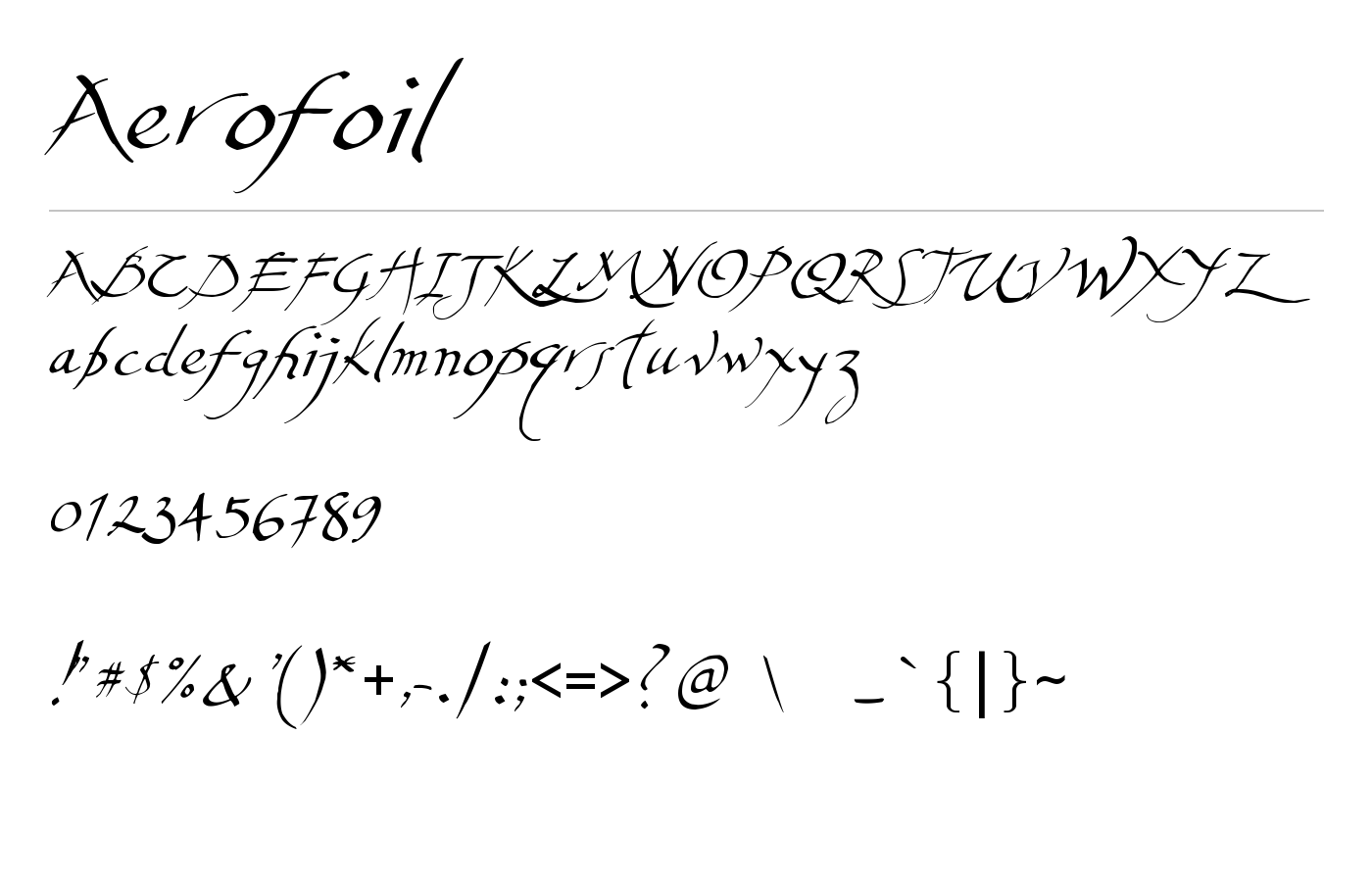
Aerofoil is an elegant script font with a delicate, calligraphic style characterized by thin, flowing strokes and slightly varied contrast. Its graceful letterforms feature distinctive, sharp curves and subtle flourishes that lend it a refined, artistic feel, perfect for upscale branding, invitations, and stylish editorial use. This font’s slender, airy design creates a sophisticated and expressive tone, making it ideal for projects that seek a blend of elegance and personal touch.
Aerofoil Font